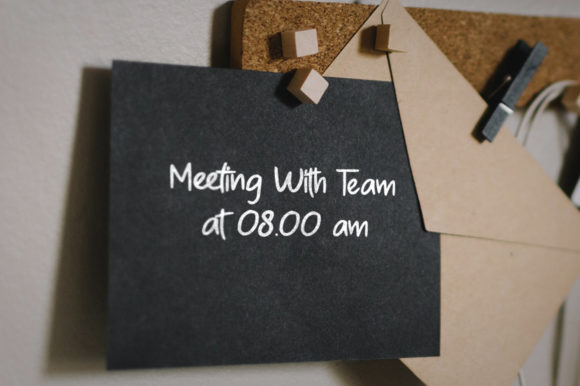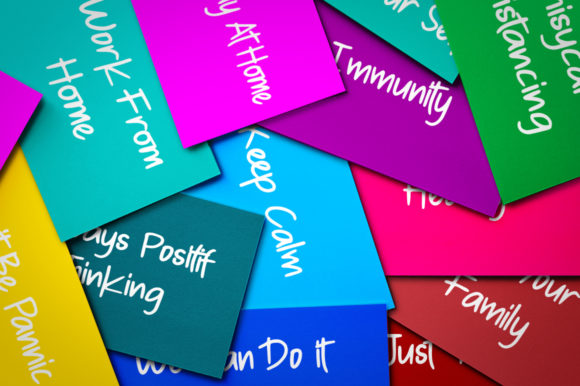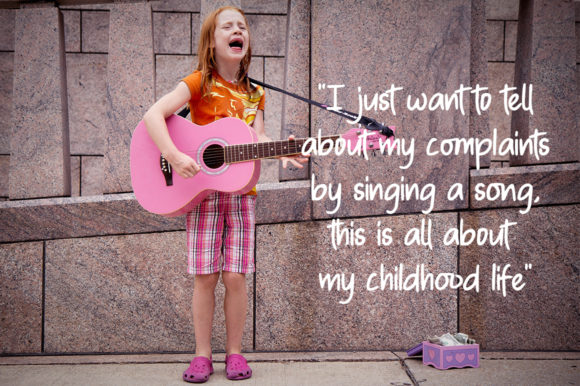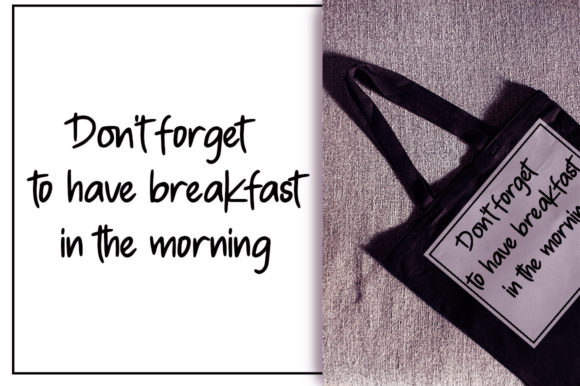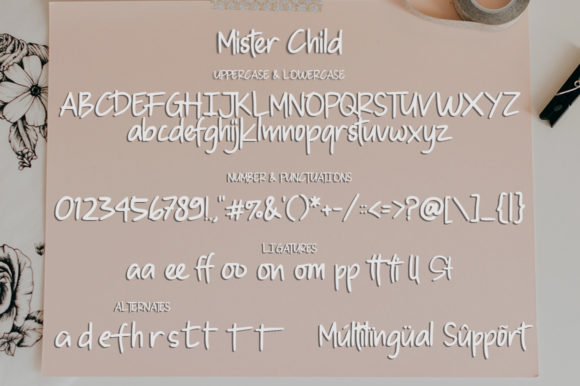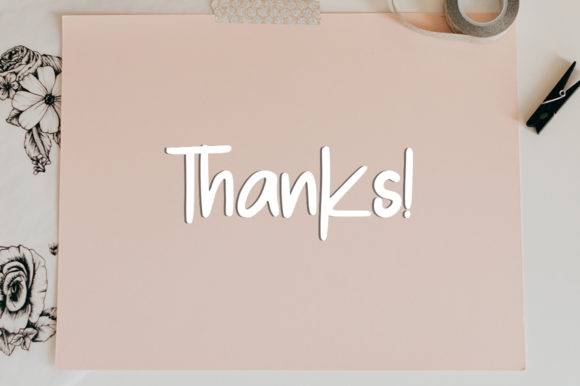
Mister Child Font
About Mister Child Font
Mister Child is a modern and casual handwritten font with an incredibly friendly feel. Whether you’re looking for fonts for Instagram or calligraphy scripts for DIY projects, this font will turn any creative idea into a true piece of art!